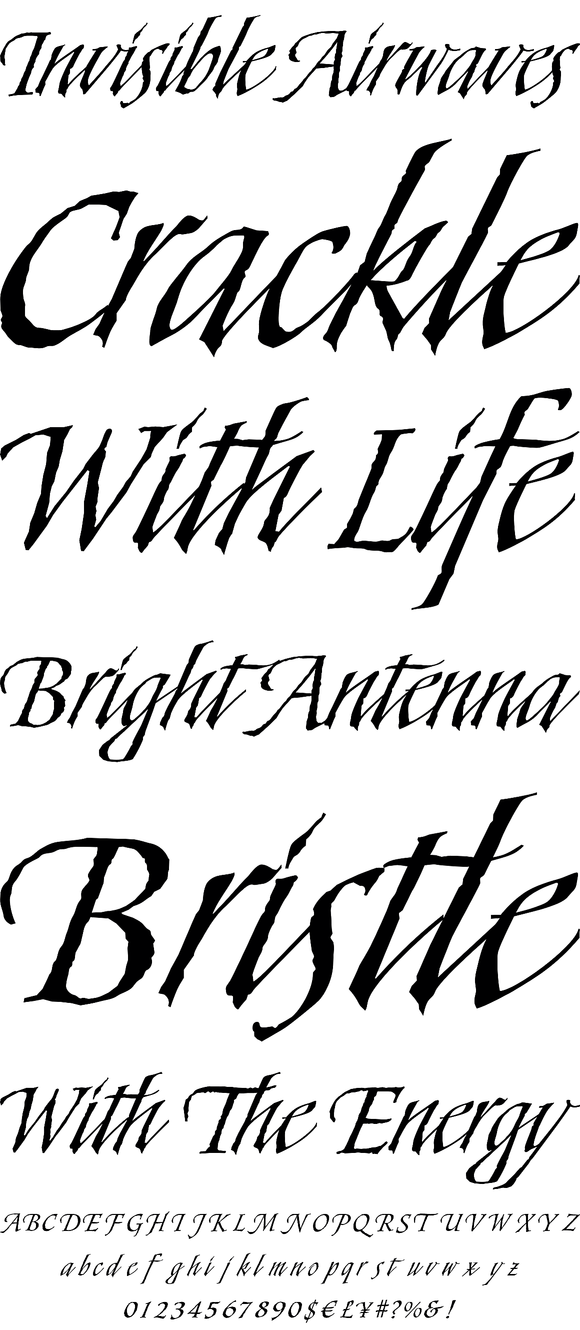
Philip Bouwsma makes use of his extensive calligraphy and type design experience by reaching into his vault and completing one of his unfinished projects from the mid 1990s. The result is Styx, a four font connected script family, with rough and smooth variations, each containing two sets of majuscules and plenty of alternates sprinkled throughout the character map. The Styx family comes in all popular font formats, and includes an extended range of language support covering Western and Central Eastern European languages, Turkish, Baltic, Esperanto and Celtic Welsh. The OpenType fonts contain both flat and class based kerning.